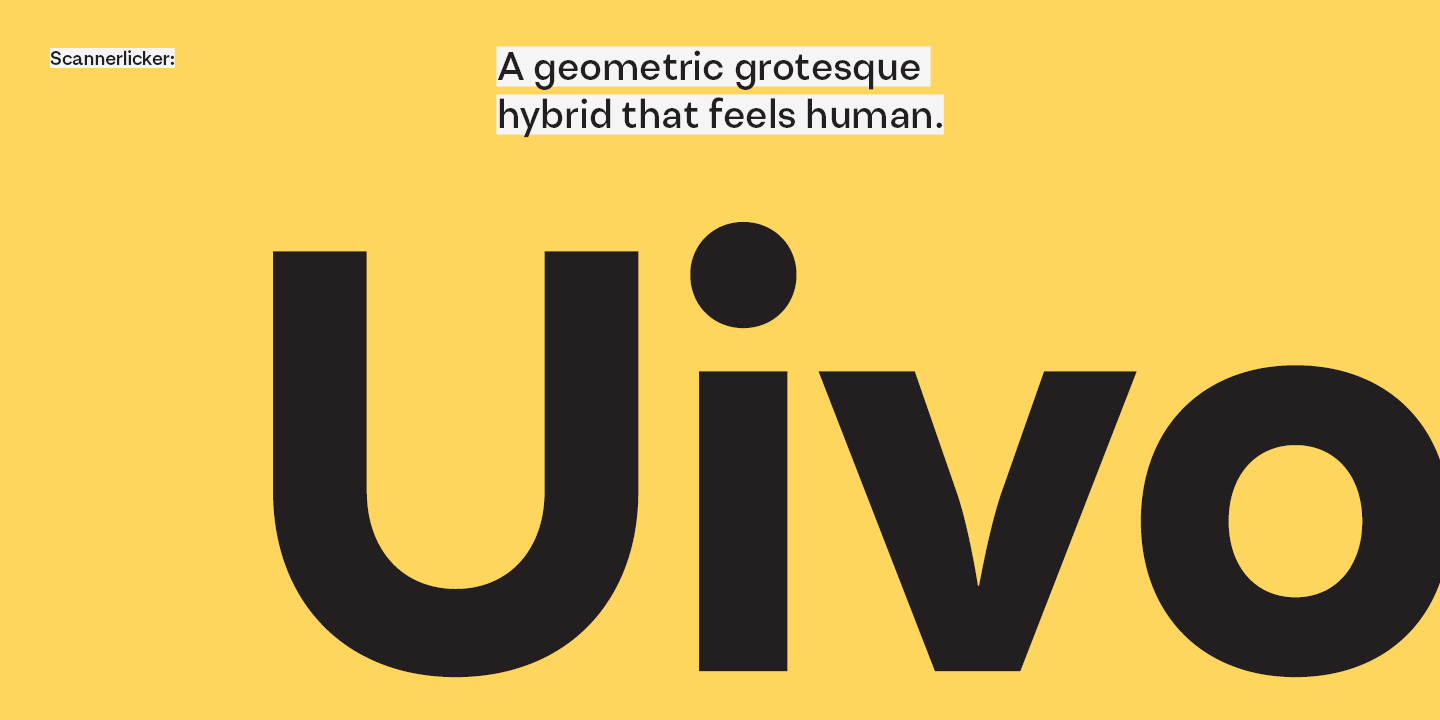
Uivo Font Free Download is a sleek and modern sans-serif typeface designed to bring clarity and sophistication to any project. Its clean lines and balanced proportions make it an excellent choice for branding, editorial layouts, digital interfaces, and creative design work.
Featuring a minimalist yet distinctive style, Uivo Font Free Download offers great readability and versatility, ensuring your text stands out without overwhelming the design. It works beautifully for both headlines and body text, making it a go-to font for many designers.
Add a fresh and professional look to your designs with Uivo Font Free Download. If you're seeking a font that combines modern elegance with functionality, Uivo is a smart choice.